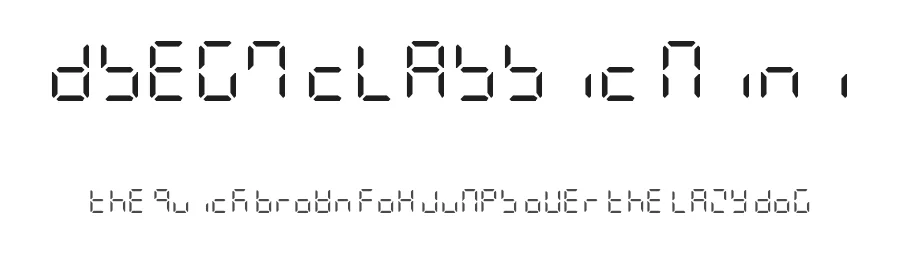
About DSEG7 Modern Font
DSEG7 Modern is a display font designed by Keshikan(Twitter:@keshinomi_88pro). It includes 70 glyphs, a regular weight, OTF (CFF) format, and 91 languages. DSEG7 Modern is free to download; check the license details on this page before commercial use. Display fonts like DSEG7 Modern work best for logos, posters, headlines, and eye-catching social media graphics.
DSEG7 Modern Font is a display font that shines as a display or heading face. Pair it with a clean sans-serif or serif font for body text โ the contrast creates a clear hierarchy while the two styles stay balanced and easy to read.
DSEG7 Modern Font
by Keshikan(Twitter:@keshinomi_88pro)
DSEG7 Modern Font is a display typeface by Keshikan(Twitter:@keshinomi_88pro), ideal for logos, invitations, branding, and creative projects.